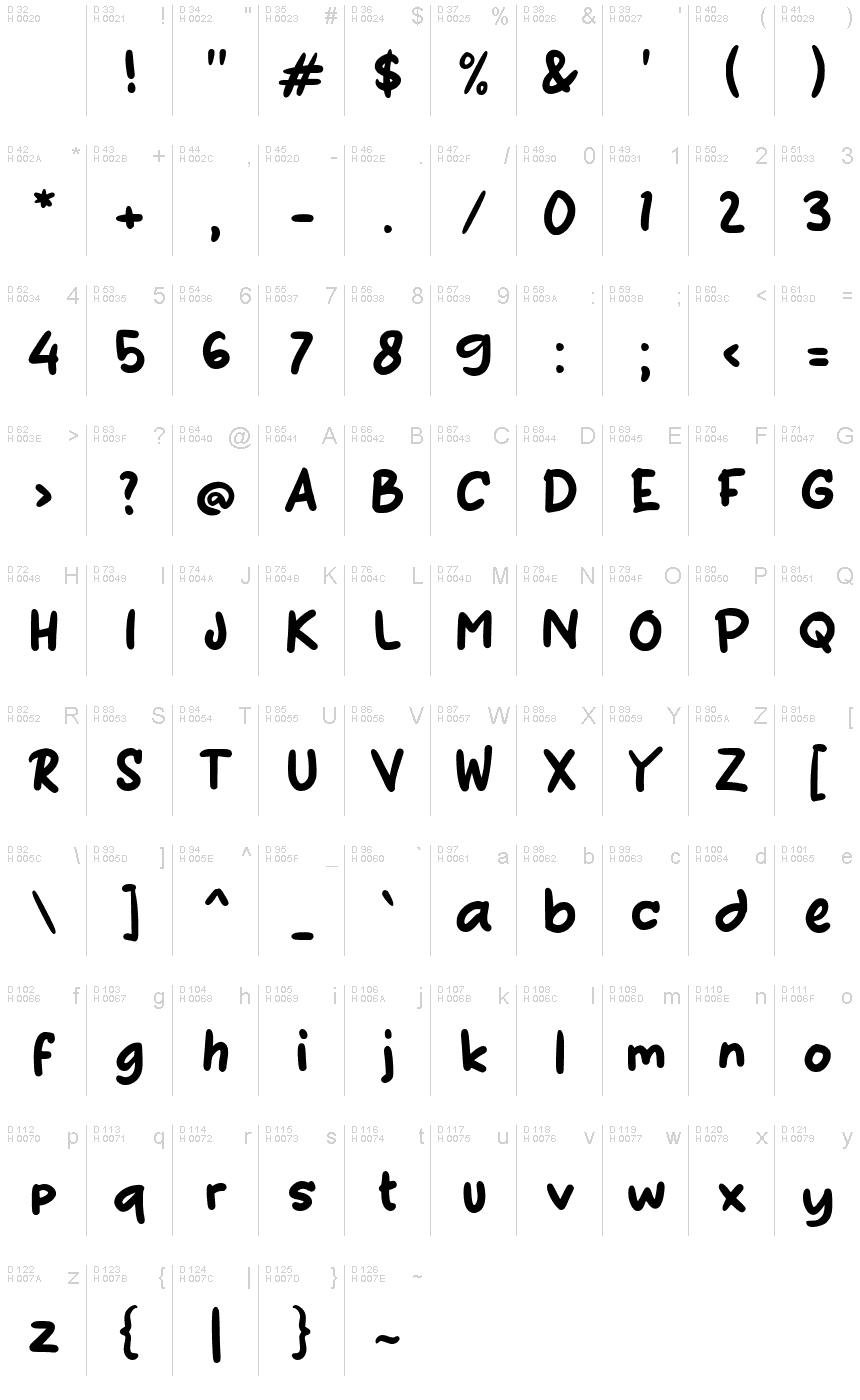
Funny Cat
Funny Cat is a playful handwritten font designed by wep. With its semi-bold weight, this font adds a touch of whimsy and charm to any project.
Perfect for children's books, greeting cards, or party invitations, Funny Cat brings joy and liveliness to your designs. Its unique style and personality will make your text stand out and create a delightful reading experience.
Whether you're designing for print or digital media, Funny Cat is the purr-fect choice to infuse fun and playfulness into your projects.